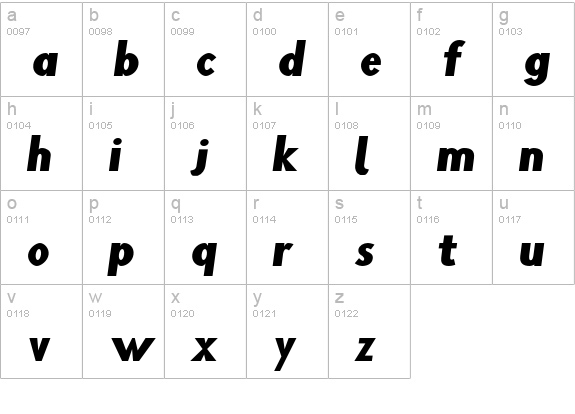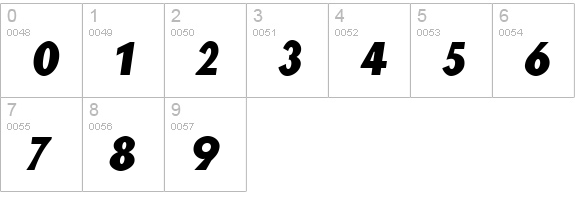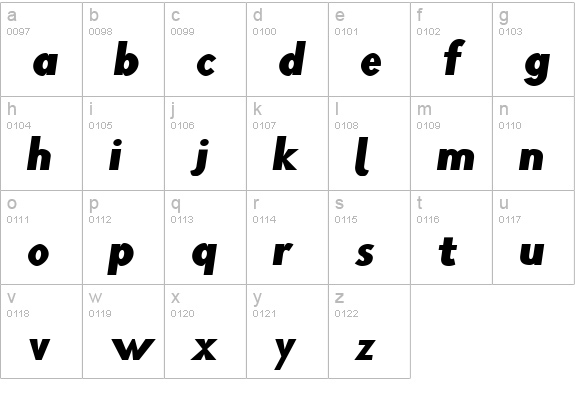
Blink Wide Oblique is a distinctive, extended-width, italic variant in the Blink typeface family \xE2\x80\x94 well suited to design and typography projects.
Blink Wide Oblique is a remarkable font that effortlessly combines elegance with modernity. Its unique oblique angle adds a touch of dynamism to any design, making it perfect for creating eye-catching headlines, logos, and branding materials. With its wide and bold letterforms, Blink Wide Oblique commands attention and leaves a lasting impression. This font is not only visually stunning, but it also offers great versatility. Whether you're designing for print or digital media, Blink Wide Oblique adapts seamlessly to any context, ensuring that your message is conveyed with style and flair. One of the best features of Blink Wide Oblique is that it is available for free, allowing designers and creatives to access this exceptional font without any cost. You can easily download Blink Wide Oblique at FontsMarket.com, a reputable online platform for high-quality fonts. With just a few clicks, you can have this font in your design arsenal, ready to enhance your projects and elevate your creations to new heights. Don't miss out on the opportunity to add Blink Wide Oblique to your font collection. Whether you're a professional designer or a passionate hobbyist, this font will undoubtedly become a go-to choice for your typography needs. Download it for free at FontsMarket.com today and unleash your creativity with Blink Wide Oblique.